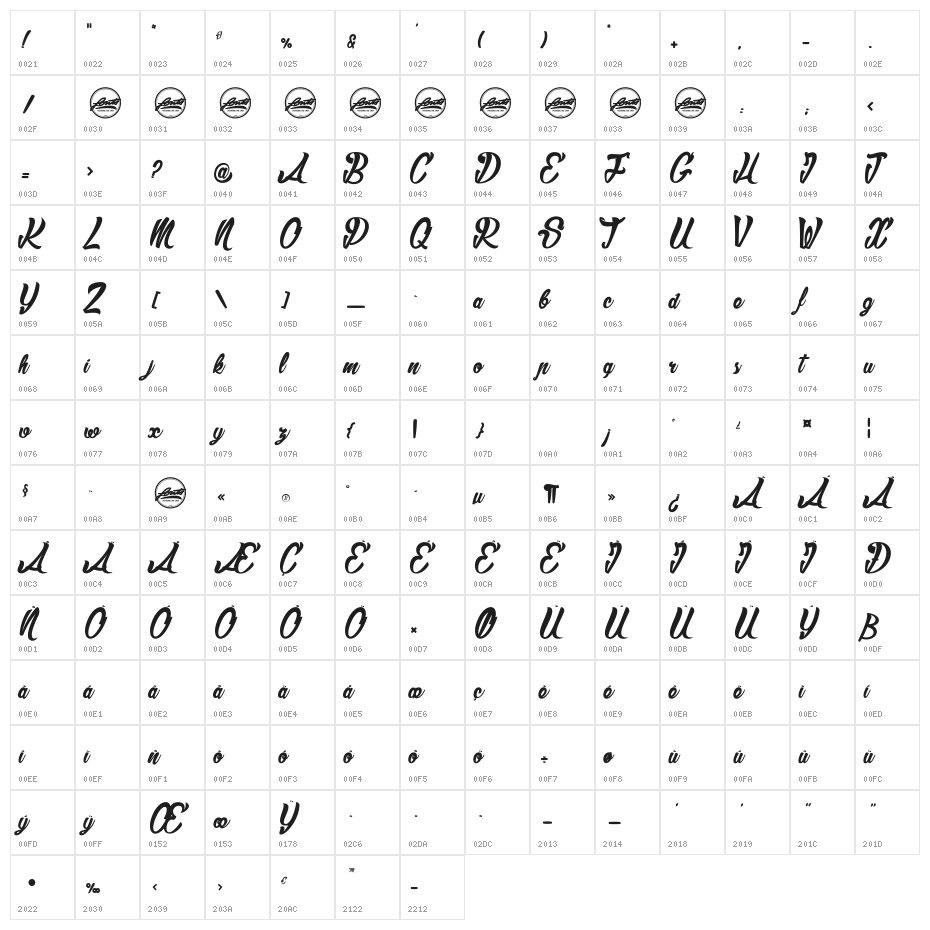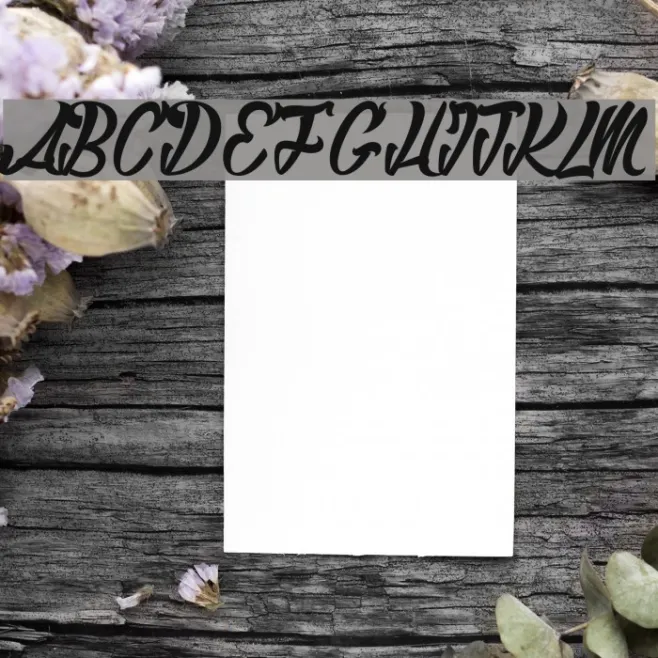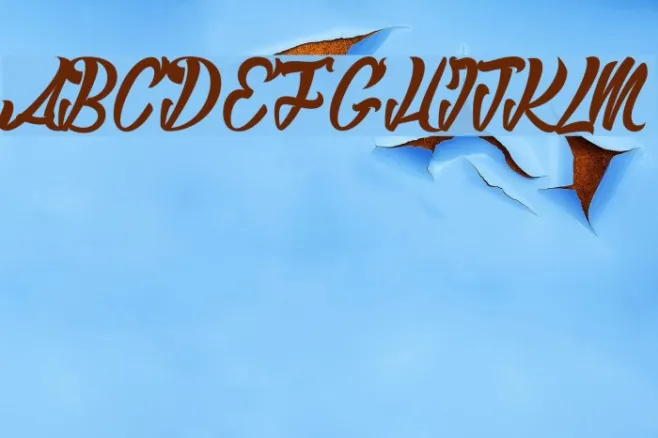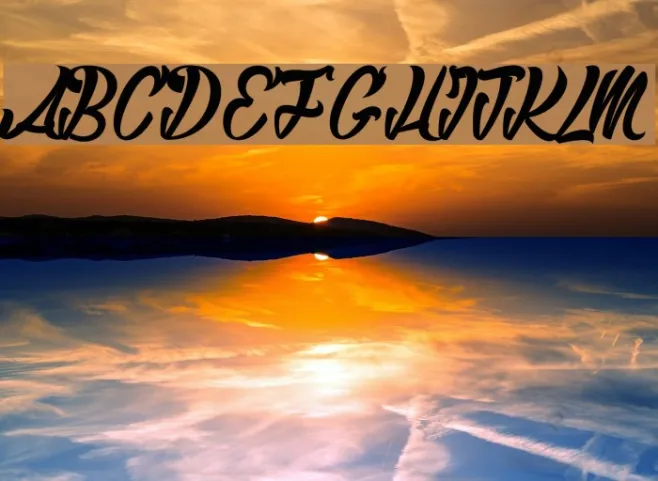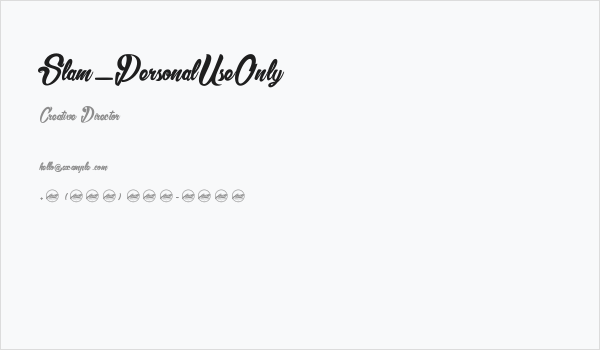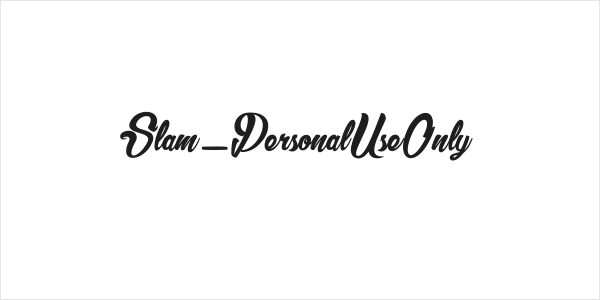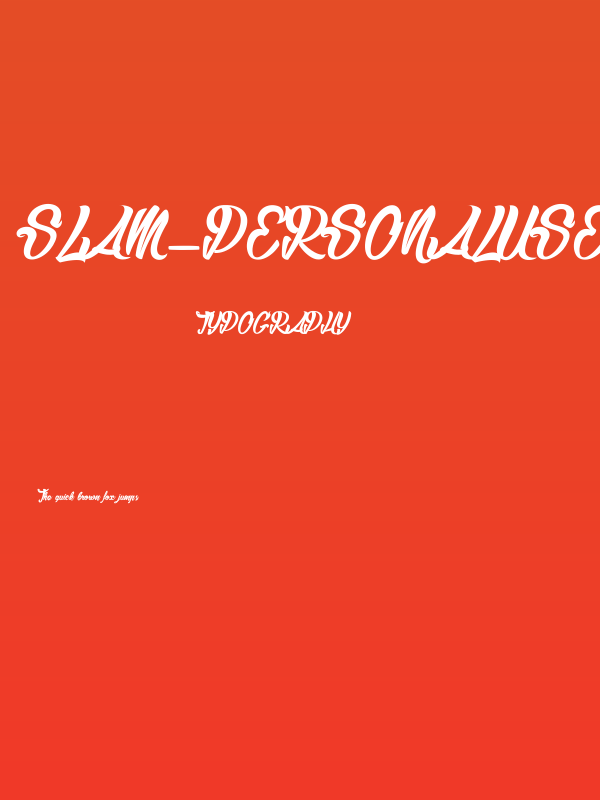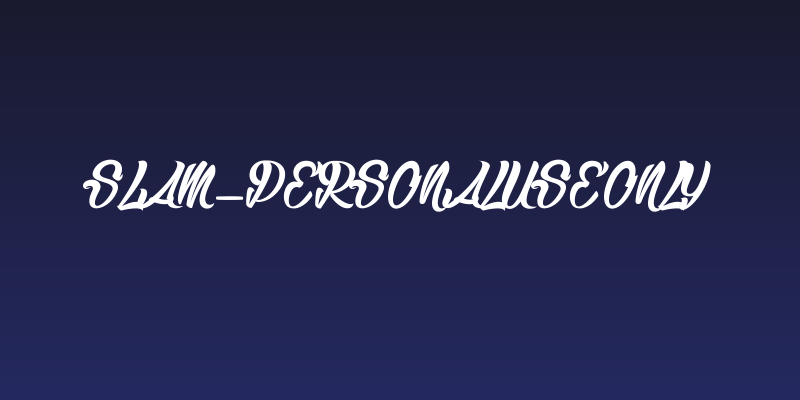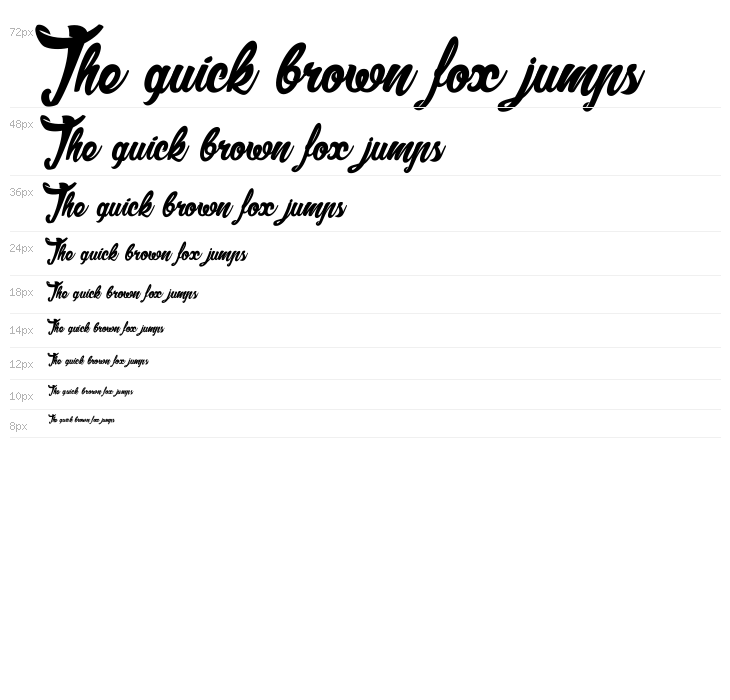
Slam_PersonalUseOnly Font
Slam_PersonalUseOnly Description
This font features a bold, cursive style with a strong emphasis on fluidity and elegance. The uppercase letters are characterized by dramatic flourishes and sweeping curves, while the lowercase letters maintain a consistent flow with slightly less ornamentation. The numbers and special characters are designed to complement the overall aesthetic, maintaining the same bold and dynamic appearance. The font's design is reminiscent of classic calligraphy, yet it carries a modern twist, making it suitable for a variety of creative applications. The strokes are thick and consistent, providing a high contrast that enhances readability while maintaining an artistic flair.
| Use Case | Logos, Decorative headlines, Invitations |
| Proposed Projects | Ideal for wedding invitations, branding, logos, and decorative headlines. |